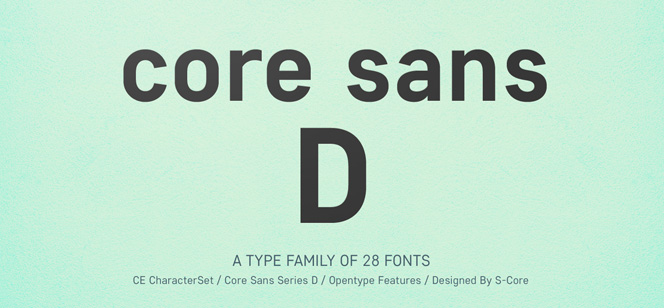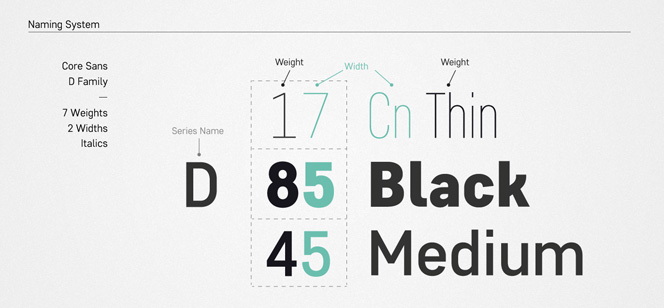
Core Sans D font
Core Sans D font is a modern typeface, part of the large Core Sans family that consists of Core Sans A, Core Sans NR, Core Sans M, Core Sans G, Core Sans N, and Core Sans N SC. As the name suggests this is a sans-serif typeface with condensed geometric construction. This look is achieved by using means like large x-heights, precisely adjusted spaces between letters as well as clean and simple letterforms. All these make Core Sans D perfect for headlines and longer texts.
Core Sans D font comes in two widths – Normal and Condensed and seven weights – Thin, Light, Regular, Medium, Bold, Heavy, Black with their respective Italics. To make things even better each font has case features, fractions, proportional and tabular figures, nominators and denominators, superscript, subscript, scientific inferiors. Extensive language support is provided for Basic Latin, Turkish, Central European, Baltic and Cyrillic character sets.
Core Sans D is designed by Hyun-Seung Lee, Dae-Hoon Hahm and Min-Joo Ham – a group of designers of the Korean S-Core type foundry. Other prominent fonts of this foundry include: Core Sans A font, Core Rhino font, Core Narae Pro font, Core Mellow font.
Designers: Hyun-Seung Lee, Dae-Hoon Hahm, Min-Joo Ham
Publisher: S-Core